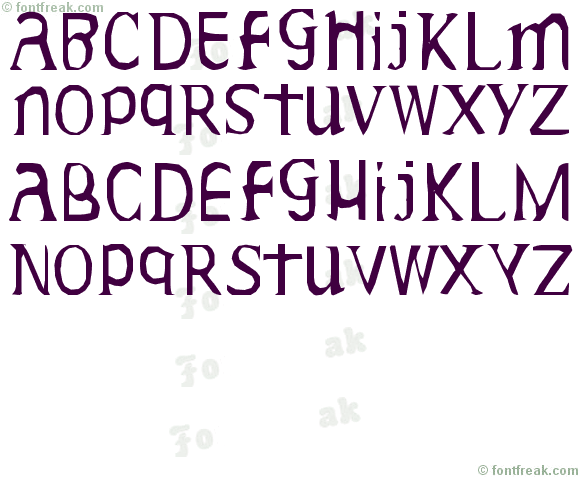
Gideon Plexus
About Gideon Plexus
Gideon Plexus is a striking display font created by Bolt Cutter, categorized under decorative typefaces. This unique font features a blend of sharp edges and flowing curves, giving it a modern yet artistic flair. The stroke weight exhibits a significant contrast, with some characters showcasing bold, pronounced lines while others maintain a lighter touch, enhancing its visual dynamism. The spacing between letters is well-considered, ensuring readability without sacrificing its eye-catching appeal. Decorative elements, such as unique serifs and intricate details in certain characters, contribute to its distinctive character, making it stand out in various design contexts.
This font is ideal for a range of creative applications. It can elevate wedding invitations with its elegant yet contemporary style, making the event feel even more special. Additionally, Gideon Plexus works wonderfully for movie posters, providing a dramatic and engaging title that captures attention. Small business owners can utilize it for restaurant menus, giving their brand identity an artistic edge that attracts customers. Content creators looking to stand out on social media or digital marketing campaigns will find that this font adds a touch of individuality and charm to their visuals.
Targeting graphic designers, small business owners, and content creators alike, Gideon Plexus offers versatility that appeals to diverse audiences. The font's unique design elements allow it to be used in both print and digital formats, making it a valuable resource for various projects.